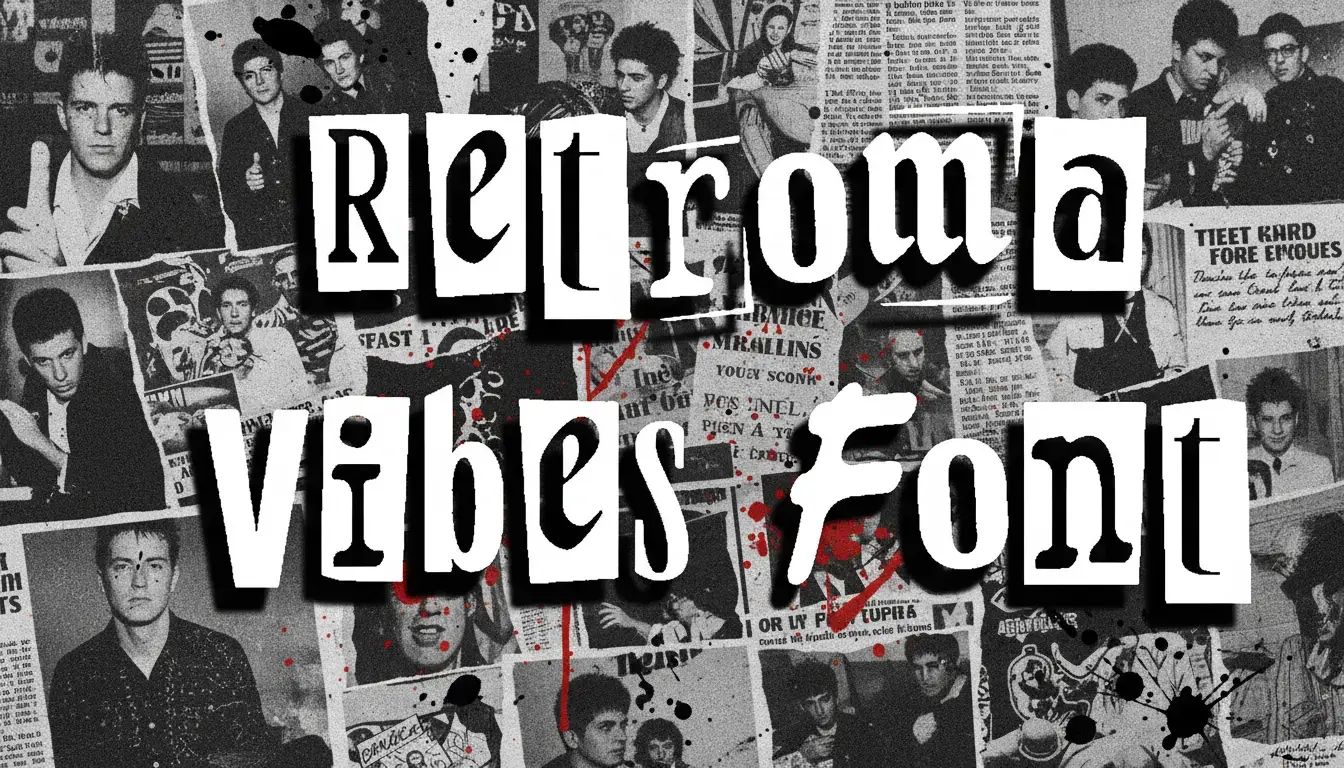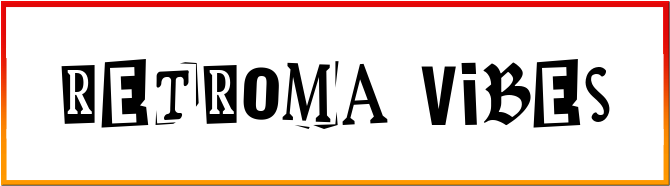
Retroma Vibes Font
Retroma Vibes
Retroma Vibes Font Details
What You Can Type With Retroma Vibes
Retroma Vibes covers the full alphabet in upper and lowercase, plus all ten numbers, so you can set names, dates and prices without switching fonts. Everyday marks like ! and ? are there too. There are no accented letters like é or ñ, so it's best kept to English text.
Where Retroma Vibes Works Best
Retroma Vibes is a natural fit for posters, logos and eye-catching headlines. Use it for one standout word or headline and let simpler fonts handle the rest.
Does Retroma Vibes support accented letters?
No. Retroma Vibes has no accented letters such as é, ñ or ü, so it's best for English text.